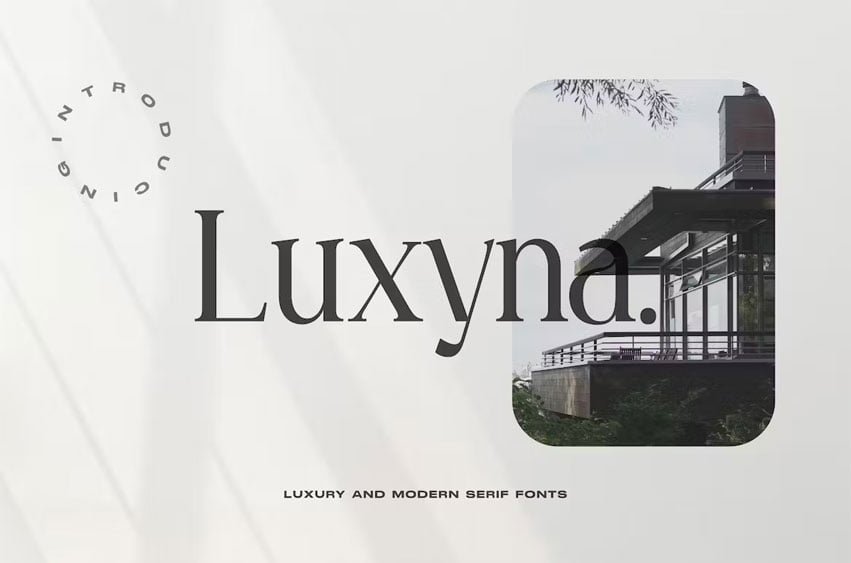
Luxyna Font is a Luxury Serif Font. A perfect blend of luxury and modern spirit, Luxyna will appeal to all audiences, young and old. Best of all, it works great on both the web and in print. Give it a go and see how the right font choice improves your image.
• Multilingual & Ligature Support
• Full sets of Punctuation and Numerals